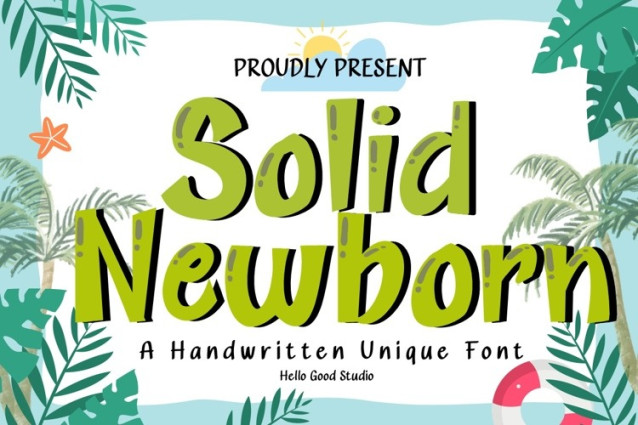
Solid Newborn Font
Solid Newborn Font is a chunky, comic, and cartoon display font. With its neat and joyful personality, this font will enhance any project you wish to create!